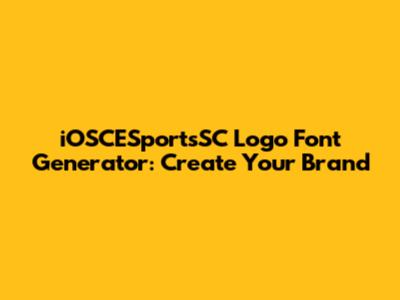
What's up, gamers and esports fanatics! Ever wanted to make your own iOSCESportsSC logo font look super fresh and stand out from the crowd? Well, guys, you're in luck because today we're diving deep into the awesome world of logo font generators, specifically for the iOSCESportsSC community. Creating a unique brand identity is key in the competitive esports scene, and your logo font is a massive part of that. It's the first impression, the visual handshake, and honestly, it sets the whole vibe. Whether you're a solo streamer, a budding esports team, or a big-shot tournament organizer, having a killer font for your logo is non-negotiable. We're talking about fonts that scream professionalism, dynamism, and of course, esports. Think bold, futuristic, edgy, or sleek – whatever your brand's personality is, there's a font out there to match. But where do you even start? That's where these iOSCESportsSC logo font generators come into play. They're your secret weapon for crafting eye-catching visuals without needing a degree in graphic design. So, buckle up, because we're about to unlock the secrets to making your brand unforgettable.
Why Your iOSCESportsSC Logo Font Matters More Than You Think
Alright, let's get real for a second. You might be thinking, "It's just a font, how important can it really be?" Guys, let me tell you, it's hugely important, especially in the vibrant and fast-paced world of iOSCESportsSC and esports in general. Your logo font is more than just letters; it's a visual representation of your brand's identity, its personality, and its core values. Think about your favorite esports teams or games. What comes to mind? Probably their iconic logos, right? And behind those logos are carefully chosen fonts that convey power, speed, innovation, or maybe a touch of rebellion. A great logo font can instantly communicate what your brand is all about. Is it aggressive and competitive? Is it sleek and futuristic? Or is it more community-focused and friendly? The typeface you choose speaks volumes before anyone even reads your name. In the crowded esports landscape, standing out is crucial. A generic, bland font will get lost in the noise. But a unique, impactful font? That's what catches the eye, builds recognition, and makes your brand memorable. Furthermore, consistency is king. Using the same distinctive font across all your platforms – your stream overlays, social media, merchandise, and website – builds a strong, cohesive brand image. This consistency fosters trust and professionalism. Imagine seeing a flashy, custom font on a team's jersey, then seeing the exact same font on their Twitch channel, their Discord server, and their sponsor banners. It creates an instant connection. Conversely, using a default, boring font can make your brand look amateurish and untrustworthy, which is the last thing you want when you're trying to attract sponsors, fans, or players. So, when we talk about iOSCESportsSC logo font solutions, we're not just talking about aesthetics; we're talking about building a solid foundation for your brand's success. It’s about making sure that when people see your logo, they instantly feel something and associate it with the quality and excitement you bring to the esports table. Don't underestimate the power of pixels and personality!
Diving Into iOSCESportsSC Logo Font Generators: What Are They?
So, what exactly are these magical iOSCESportsSC logo font generators we keep mentioning? Basically, think of them as your digital design buddies. They are online tools, often free or freemium, that allow you to type in your text (like your team name or gamer tag) and then experiment with a wide array of fonts to see how it looks. Pretty neat, huh? Instead of fiddling with complex design software like Photoshop or Illustrator, which let's be honest, can be intimidating and expensive, these generators offer a user-friendly, drag-and-drop (or type-and-see) experience. You type your brand name, hit 'generate' or select a font, and voilà! You can instantly preview your text in hundreds, sometimes thousands, of different typefaces. The best ones will often categorize fonts by style – think modern, retro, futuristic, gaming, script, display, etc. – making it super easy to find something that fits your iOSCESportsSC vibe. Many of these tools also allow for further customization. You can tweak colors, add outlines, shadows, gradients, and even basic effects. Some advanced generators even let you upload your own graphics or combine different font elements. They're designed to give you a professional-looking result quickly and easily. For anyone involved in esports, especially content creators, small teams, or event organizers who might not have a dedicated graphic designer on retainer, these generators are a lifesaver. They democratize design, putting powerful visual tools right at your fingertips. You can brainstorm different logo ideas, test out various name variations, and get a real feel for your brand's visual identity before committing to anything or hiring a professional. It's about empowering you to create a strong visual presence that resonates with the gaming community. So, next time you need a logo font that pops, remember these awesome online wizards!
Finding the Perfect Font: Tips for Your iOSCESportsSC Logo
Alright guys, let's talk strategy. You've got your iOSCESportsSC logo font generator fired up, and you're staring at a wall of text in a million different styles. How do you actually pick the one? It's not just about picking the coolest-looking font; it needs to align with your brand and be effective. First off, readability is king. Seriously, no matter how fancy or futuristic a font looks, if people can't easily read your name or tag, it's a fail. Especially in esports, where information needs to be processed quickly, clarity is paramount. Think about how your logo will appear on various platforms – a tiny icon on a mobile device, a large banner on a stream, or embroidered on a jersey. The font needs to remain legible across all these different sizes and contexts. Secondly, consider your brand's personality. Are you a high-octane, aggressive FPS team? You might want a bold, sharp, perhaps even slightly distressed font that conveys power and intensity. Or maybe you're a chill, community-focused streamer who plays cozy games? A rounded, friendly, or perhaps a clean, minimalist sans-serif font might be a better fit. For iOSCESportsSC specifically, many brands lean towards futuristic, digital, or tech-inspired fonts. Think clean lines, geometric shapes, and sometimes even a bit of an electronic feel. Don't be afraid to experiment with unique display fonts, but always keep that readability factor in mind. Color and style options are also crucial. While the generator helps preview fonts, think about how the font will look in different colors. Does it work well in black and white? Can it be adapted for various color schemes? Many generators allow you to test colors, so play around with them. Also, consider if the font has different weights (bold, light, italic) that you might need for variations in your branding. Finally, get feedback! Show your top few font choices to friends, teammates, or your community. Ask them which one best represents your brand and which one they find most appealing. A second (or third, or fourth) opinion can be incredibly valuable. Remember, your logo font is a long-term decision, so take your time, be thoughtful, and choose wisely to make your iOSCESportsSC presence truly shine.
Popular Font Styles for Esports Logos
When you're on the hunt for that perfect iOSCESportsSC logo font, you'll notice certain styles just scream esports. These are the go-to aesthetics that resonate with gamers and capture the essence of competitive gaming. Let's break down some of the most popular and effective font styles you'll see dominating the scene. First up, we have Futuristic and Sci-Fi fonts. These are incredibly popular because they evoke a sense of advanced technology, speed, and innovation – all key elements in the esports world. Think sharp angles, sleek lines, often with a digital or circuit-board-like feel. They can be very clean and minimalist or have intricate details that suggest complex machinery. These fonts often work wonders for teams competing in space-themed games or anything involving advanced tech. Next are Bold and Aggressive fonts. These are your powerhouses. Characterized by thick strokes, strong serifs (or blocky sans-serifs), and sometimes even a slightly distressed or weathered look, these fonts convey strength, dominance, and a no-nonsense attitude. They’re perfect for fighting games, MOBAs, or any team aiming to project an image of raw power and intimidation. Often, these fonts have sharp edges and a dynamic, forward-leaning italicization. Then there are Geometric and Modern Sans-Serifs. These fonts are all about clean lines, balanced shapes, and overall clarity. They often feel very contemporary and professional, striking a great balance between being stylish and highly readable. While they might seem simple, their design is often meticulously crafted. Many modern sans-serifs have a slightly wider stance, which can give a feeling of stability and confidence. They are incredibly versatile and work well for a wide range of iOSCESportsSC brands looking for a clean, sophisticated, and trustworthy image. Don't forget Stencil and Military-inspired fonts. These fonts often have cutouts (like traditional stencils) or a rugged, utilitarian design that harkens back to military aesthetics. They give off a vibe of toughness, discipline, and readiness for action. They can add a gritty, authentic feel to a logo, particularly for teams with a strong, unified front. Finally, Display and Unique/Custom fonts. This is a broader category for fonts that are highly stylized and designed to make a statement. They might include unique ligatures, unconventional letterforms, or highly stylized decorative elements. While these can be amazing for creating a truly unique iOSCESportsSC logo font, use them with caution. Ensure they don't sacrifice readability entirely. Often, these are best used for the main logo wordmark, with a simpler font used for taglines or supporting text. When exploring generators, look for tags like 'tech', 'gaming', 'sport', 'modern', 'bold', or 'futuristic' to find fonts that fit these popular esports categories.
How to Use a Logo Font Generator Effectively
Alright, let's get practical, guys! You've got the knowledge, now let's talk about how to actually use these iOSCESportsSC logo font generators like a pro. It's not just about typing and clicking; it's about a process. First, clarify your brand identity. Before you even touch a generator, ask yourself: What's the core message of my brand? Who is my target audience? What feelings do I want to evoke? Write down keywords: aggressive, fast, fun, professional, community, techy, etc. This will guide your font selection. Once you have that, start with your text. Type in your team name, gamer tag, or brand name. Keep it concise. Some generators allow you to type longer phrases, but for a logo, shorter is often better. Explore and filter. Don't just pick the first font that looks okay. Browse through different categories if the generator offers them. Use keywords in the generator's search bar if available (e.g., 'gaming', 'futuristic', 'sports'). Experiment with variations. Most generators let you see your text in multiple fonts side-by-side. Take advantage of this! Create a shortlist of 5-10 fonts that catch your eye. Tweak the details. Once you've narrowed it down, play with the customization options. Change the colors – try your primary and secondary brand colors. Add outlines, shadows, or glows if they enhance the design without making it look cluttered. Some generators might even offer basic spacing adjustments (kerning or tracking) – subtle changes here can make a big difference. Check legibility at different sizes. This is crucial! Many generators have a preview function where you can simulate how your text looks small (like an avatar) and large (like a banner). Make sure it's readable in both scenarios. If a font gets too messy or loses its impact when shrunk down, it's probably not the right choice. Download or screenshot wisely. Understand the output options. Some generators let you download a high-resolution image (PNG with transparency is ideal), while others might only offer screenshots. If you're aiming for a professional logo, you'll ideally want vector files, which these free generators rarely provide. However, for initial concepts or personal use, a good quality PNG is often sufficient. Iterate and refine. Don't expect to find the perfect font in the first five minutes. Come back to it later with fresh eyes. Sometimes, stepping away and returning can give you new perspective. If you're serious about your brand, consider using the generator for inspiration and then perhaps commissioning a designer to finalize a unique logo based on your chosen font style. Using a iOSCESportsSC logo font generator is a powerful first step to establishing a strong visual identity that truly represents you and your passion for esports.
Beyond Generators: When to Hire a Pro
While iOSCESportsSC logo font generators are incredibly useful, guys, let's be real – there are times when you need to level up and bring in the big guns: a professional graphic designer. When exactly is that time? Well, first and foremost, if you're aiming for serious brand recognition and scalability, a custom design is almost always superior. Generators use existing fonts, which means your logo might not be entirely unique. Another designer could create a custom typeface or modify an existing one to be completely yours. This is crucial for larger organizations, established esports teams, or businesses looking to make a significant impact and avoid potential trademark issues down the line. Secondly, complexity and nuance often require a pro. Generators are great for basic text effects, but if you envision a highly intricate logo with custom graphics, unique symbol integration, or a very specific aesthetic that goes beyond simple font styling, a designer has the skills and software (like Adobe Illustrator) to bring that vision to life precisely. They understand principles of design, color theory, typography, and branding in a way that a simple generator can't replicate. Thirdly, professionalism and trust. While generators can produce good results, a truly polished, professional logo often signals a higher level of investment and seriousness. For attracting major sponsors, securing partnerships, or building a large-scale community, a custom-designed logo can lend significant credibility. Sponsors want to align with brands that look polished and professional, and a generic-looking logo, even if well-made by a generator, might not cut it. Fourth, versatility and file formats. Professional designers will provide you with a full suite of logo files in various formats (vector EPS, AI, SVG, high-res PNG, JPG) suitable for everything from tiny social media icons to massive billboards and merchandise printing. Generators typically offer limited, often raster-based (like PNG or JPG) outputs, which may not scale well or be suitable for all applications. Finally, avoiding pitfalls. Designers are trained to understand copyright, licensing, and trademark issues. They can ensure the fonts you use are properly licensed for commercial use and help you navigate the process of trademarking your logo, preventing costly legal problems later on. So, while the iOSCESportsSC logo font generator is your awesome starting point for brainstorming and creating quick visuals, remember that for lasting impact, scalability, and ultimate brand integrity, investing in a professional designer is often the smartest move. It’s an investment in your brand's future!
Conclusion: Crafting Your Unique iOSCESportsSC Identity
So there you have it, folks! We've journeyed through the exciting realm of iOSCESportsSC logo font generators, uncovering why they're invaluable tools for anyone looking to make their mark in the esports arena. From understanding the crucial role a font plays in brand identity to exploring popular styles and mastering the art of using these generators effectively, you're now equipped with the knowledge to elevate your visual game. Remember, your logo font is your brand's voice, its personality, and its first impression all rolled into one. Whether you're a streamer building a personal brand, an esports team aiming for the top, or an event organizer creating buzz, a well-chosen font is non-negotiable. Generators offer an accessible, user-friendly way to experiment and find something that resonates. They empower you to create professional-looking visuals quickly and without breaking the bank. However, always keep readability, brand consistency, and your target audience at the forefront of your mind. And as we discussed, don't shy away from bringing in a professional designer when your ambitions outgrow the capabilities of a generator – it's often a vital step for serious growth and long-term success. Ultimately, the goal is to craft a unique identity that is instantly recognizable and leaves a lasting impression. So go ahead, fire up those generators, play with the fonts, colors, and styles, and start building a visual brand that truly represents the passion and energy of your iOSCESportsSC endeavors. Make it bold, make it memorable, and make it yours!